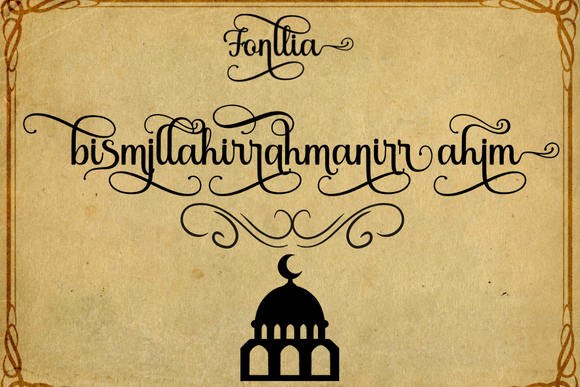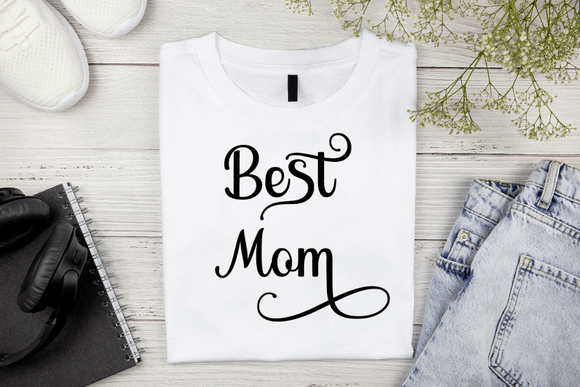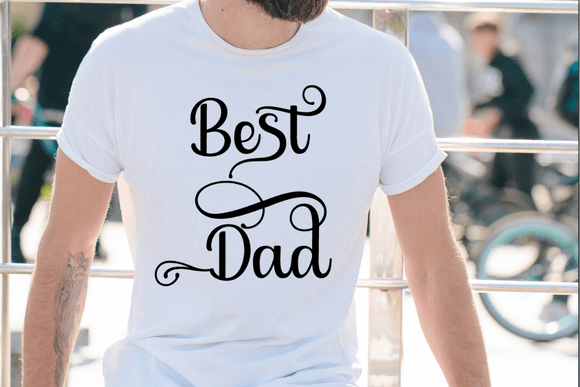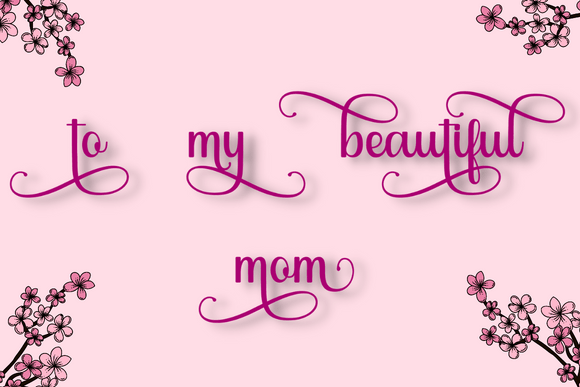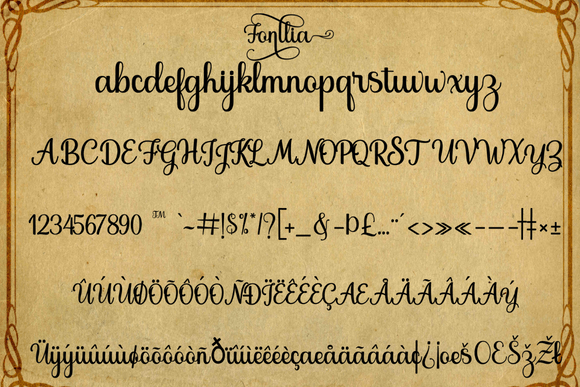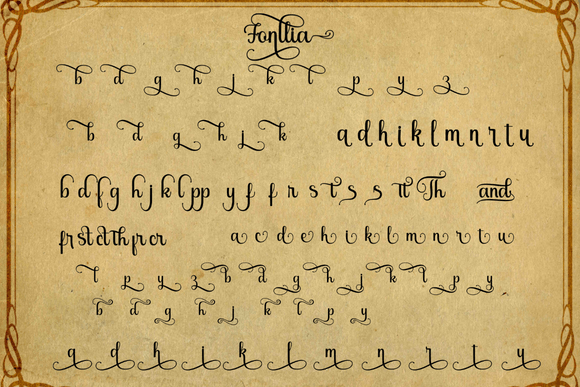
Introduction to Istanbul Font
Have you ever stumbled upon a beautiful love poem, and the words just seemed to dance off the page? That’s the magic of the Istanbul Font. Inspired by the vibrant calligraphic universe of Istanbul, this elegant font is a treasure trove for designers looking to add a touch of romance to their creative projects.
Whether you’re a graphic designer, a writer, or simply someone who appreciates the beauty of words, the Istanbul Font is a valuable design resource that’s sure to captivate your audience. With its sharp lettering and measured rhythm, this font is perfect for projects that need a high-quality, elegant touch.
Key Features of Istanbul Font
- High-quality, elegant design resource ideal for creative projects, with a transparent background for versatile use.
- Designed with precision and care, this font boasts a unique blend of modern and traditional elements, perfect for adding a touch of sophistication to your work.
- With its sleek and refined aesthetic, Istanbul Font is perfect for use in logos, branding materials, and other visual identity projects.
- Supports a wide range of languages, including Latin, Cyrillic, and Greek, making it a valuable asset for designers working on international projects.
Honest Review: Istanbul Font
I recently came across the Istanbul Font, and I must say it’s been a game-changer for my design projects. This high-quality font is a must-have for any designer looking to elevate their creative work.
What works well: ✨ The Istanbul Font has a unique, modern feel that’s perfect for contemporary designs. The transparent background option is a huge plus, making it easy to use as a background or overlay. The font is also incredibly versatile, suitable for a wide range of creative projects, from logos to brochures.
- Perfect for creative projects, including logos, brochures, and more
Limitations: ⚠️ While the Istanbul Font is generally a solid choice, I do wish it had more language support. Currently, it’s only available in a few languages, which may limit its use for international projects.
Overall impression: The Istanbul Font is a valuable addition to any designer’s resource library. Its unique design, high quality, and transparent background make it a great choice for a wide range of creative projects. While it has some limitations, the benefits far outweigh the drawbacks, making it a worthwhile download for any designer.
Istanbul Font
Getting the Most Out of Istanbul Font
To get the most out of the Istanbul Font, use it in combination with other design elements, such as graphics and images, to create a visually appealing design. You can also experiment with different font sizes and styles to add depth and interest to your design.
The Istanbul Font is ideal for a variety of design projects, including business cards, brochures, and presentations. Its elegant and sophisticated design makes it perfect for use in creative industries, such as fashion and beauty.